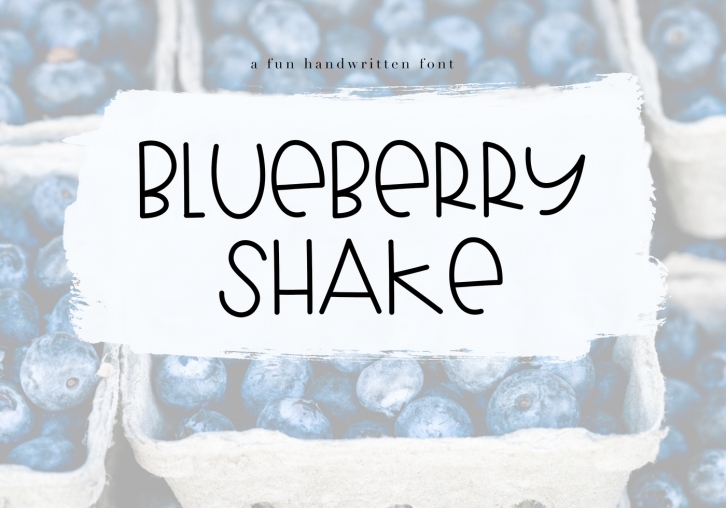
Blueberry Shake - A Fun Handwritten Font Download
Blueberry Shake is a mixup of cap/lowercase letters in a handwritten font.
The letters are big, bold and unique!
The capital letters and lowercase letters are the *same* in this font.
This font is perfect for quotes, headings, blogs, logos, invitations and more!
This font *does* include accent characters.